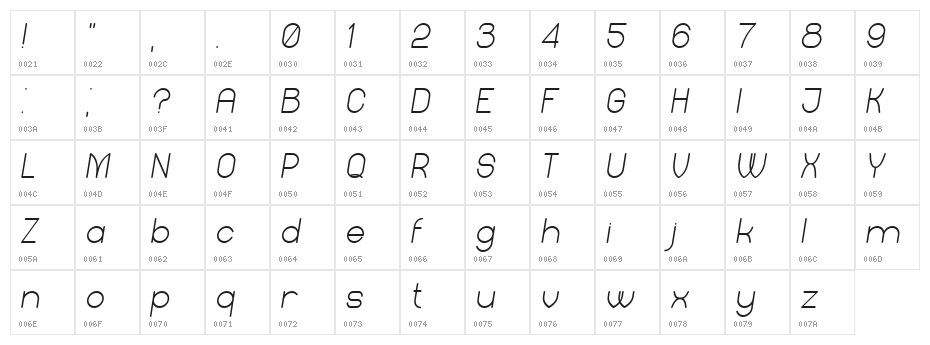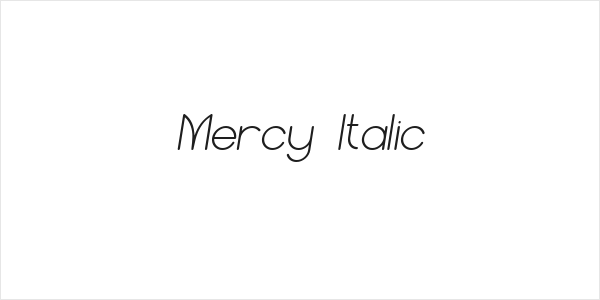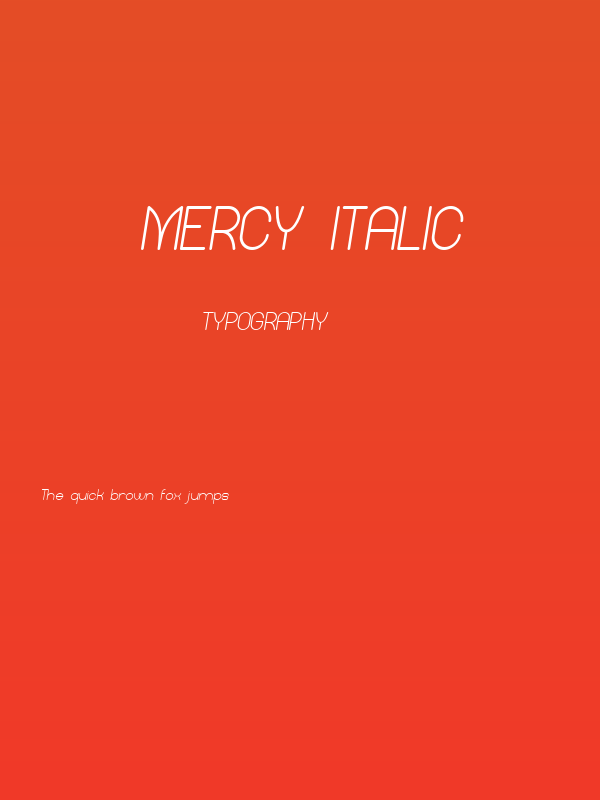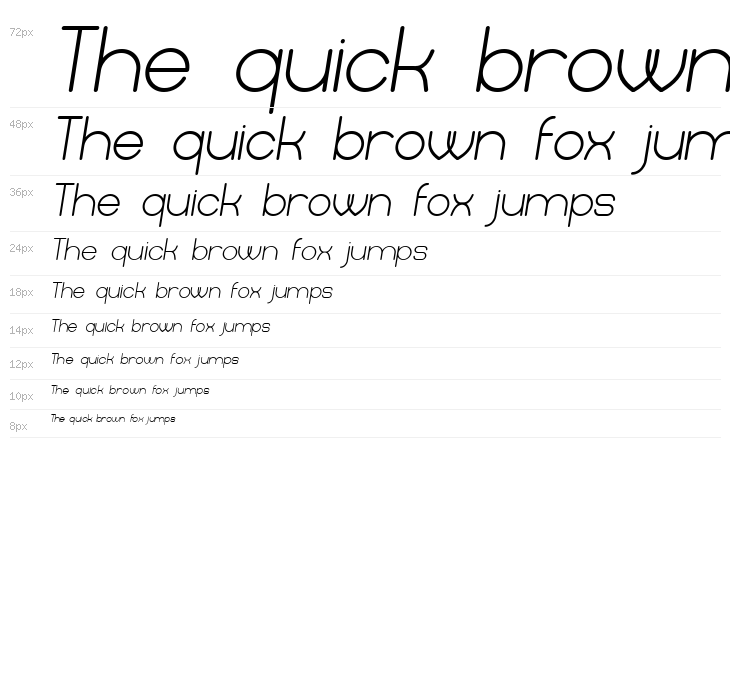
Mercy Italic Font
Mercy Italic Description
This font features a sleek and modern design with a distinct italic slant, giving it a sense of motion and elegance. The characters are formed with smooth, continuous lines that create a cohesive and fluid appearance. The uppercase and lowercase letters maintain a consistent style, with rounded edges and a uniform stroke width that adds to its readability. The numerals and special characters are designed to match the overall aesthetic, ensuring a harmonious look across all text. This font is ideal for projects that require a contemporary and stylish touch.